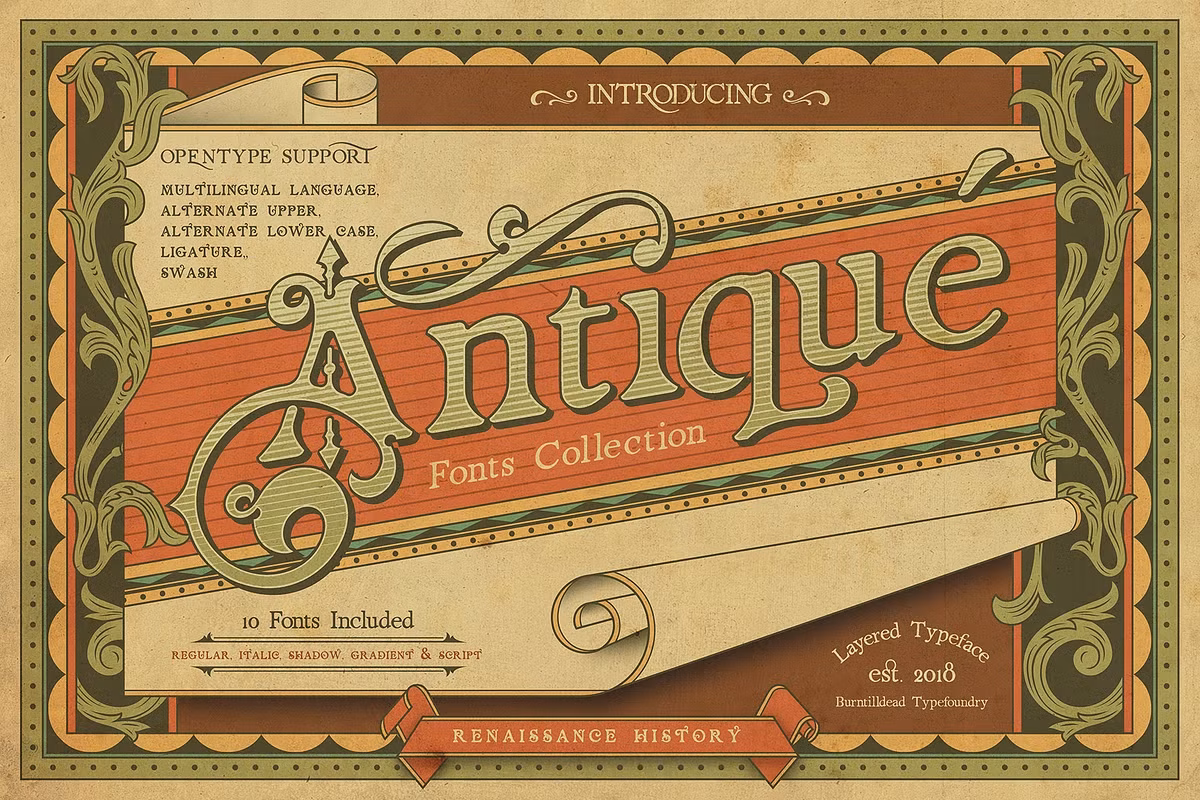
Renaissance Garden – Layered Font
Introducing Renaissance Garden, a layered font family designed to add artistic typography to your designs. This font is easy to use and great for making a statement in various creative projects.
Features:
• Styles Included: Multiple layered styles for versatile design options.
• Character Set: Uppercase and lowercase letters, numerals, and basic punctuation.
Usage Recommendations:
Renaissance Garden is ideal for:
• Logos
• Headlines
• Posters
• Branding materials
• Invitations